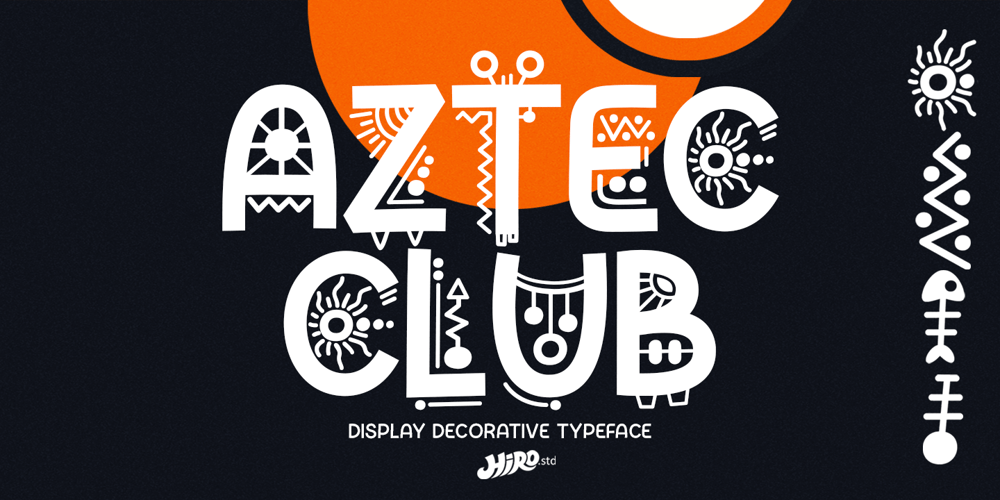
Aztec Club Font Family was designed by Chairul Ashar and published by HIRO.std. Aztec Club contains 2 styles and family package options. Aztec Club is a display decorative typeface. The typeface is presented in two fonts: regular and basic. The typeface describes about stylish, ethnic, different, pride, unique and easy to use. Aztec Club inspired by ethnic, local pride, culture and sub culture around the world. FEATURES- Uppercase and Lowercase letters- Numbering and Punctuations- PUA Encoded Characters- Multilingual Support- Works on PC or Mac- Simple Installation USEAztec Club typeface works great in logotype, headline, apparel, poster, magazine, décor item and wherever you want to be seen. Enjoy using!Thanks. HIRO.std